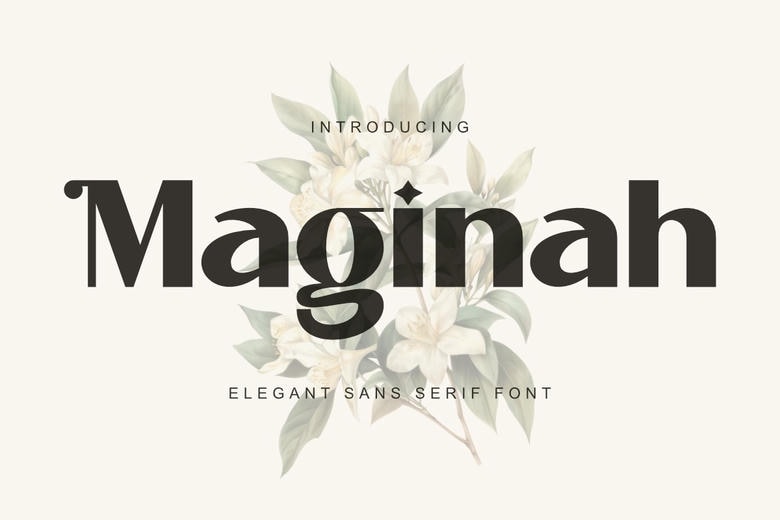
Maginah Font
Maginah is an elegant sans serif typeface, blending a contemporary aesthetic with sophisticated curves and distinctive character elements. Ideal for branding, fashion design, and premium product packaging, this font embodies a refined and luxurious feel. Maginah is well-suited for editorial design, social media graphics, and other projects requiring a high-end, polished appearance.
Maginah Sans Serif Font